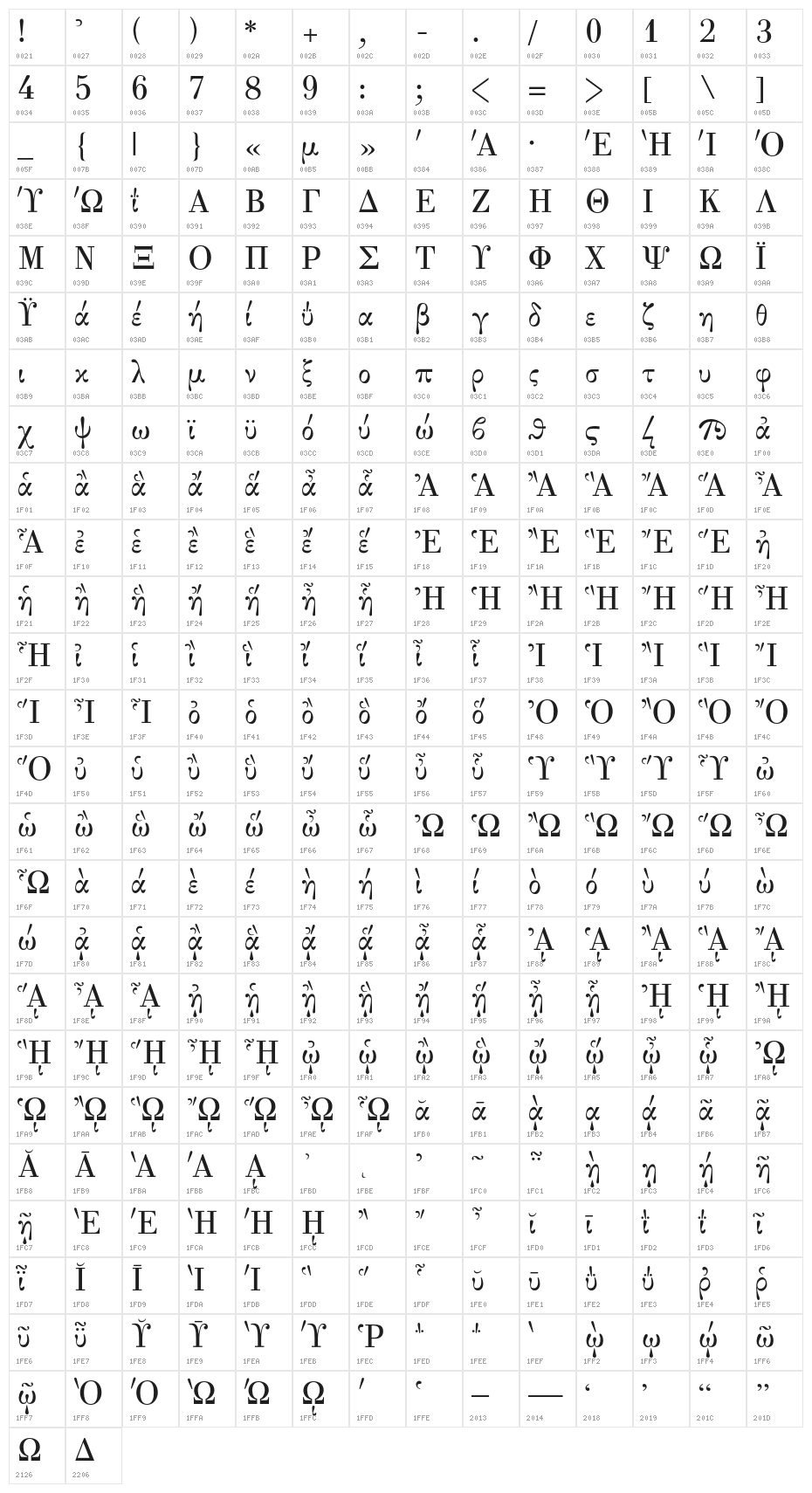
GFSDidotClassic Font
GFSDidotClassic Description
This font embodies a classic elegance with its refined and sophisticated design. It features high contrast between thick and thin strokes, which is a hallmark of traditional serif typefaces. The serifs are finely crafted, adding a touch of formality and grace. The overall appearance is clean and crisp, making it suitable for conveying a sense of timelessness and authority. The numerals are well-proportioned, and the special characters are distinct and well-integrated into the overall design. This font is ideal for projects that require a touch of class and sophistication.
| Proposed Projects | Ideal for luxury branding, editorial design, formal invitations, and classic book typesetting. |